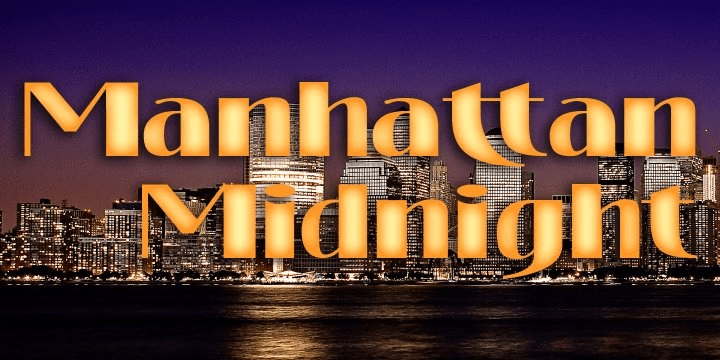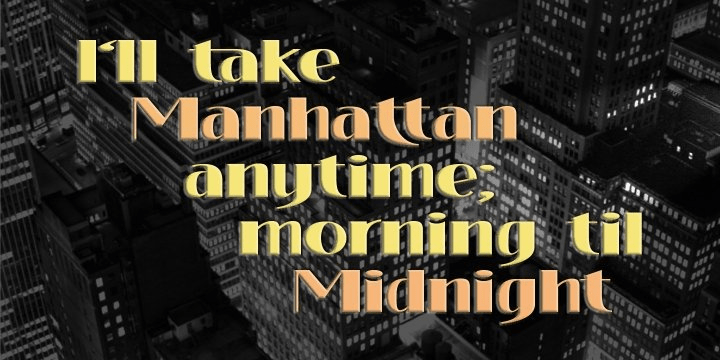
About Manhattan Midnight
Manhattan Midnight owes its style to Art Deco fonts of the early 20th century. It has the opulence of New York City in the 20s and 30s, the glitter of city lights, the glamour of movie stars, the razzmatazz of Manhattan in the bad old days. You can use…